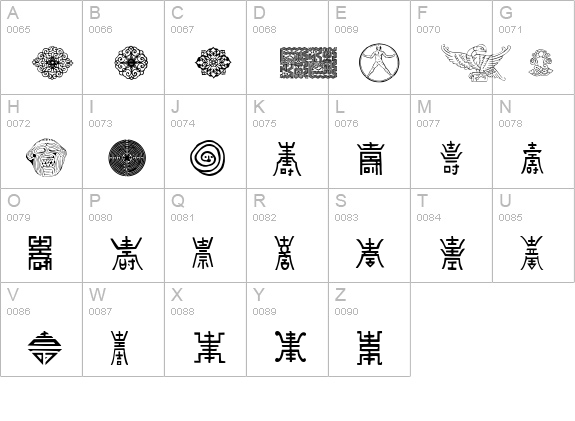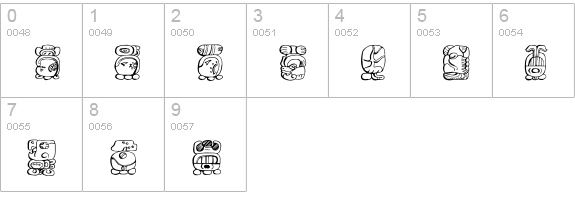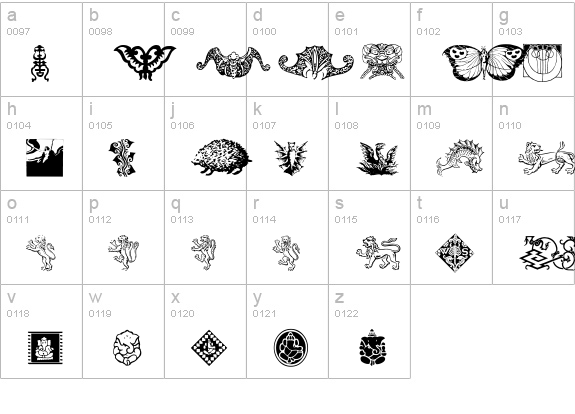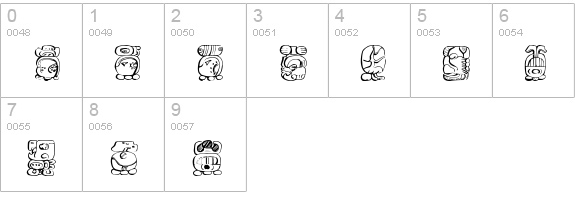
Cultural Icons Font Details
Introducing the Cultural Icons font, a versatile and dynamic typeface that pays homage to iconic symbols from various cultures around the world. This unique font features a wide range of characters inspired by art, history, and traditions, making it perfect for adding a touch of cultural flair to your designs. From ancient hieroglyphics to modern-day emojis, Cultural Icons font brings a rich tapestry of symbols at your fingertips. This one-of-a-kind font is not only visually captivating but also incredibly functional, allowing you to create eye-catching graphics, posters, and branding materials with ease. Whether you're looking to add a touch of mystique to your project or simply want to celebrate the diversity of global cultures, Cultural Icons font has got you covered. The best part? Cultural Icons font is available for free download at FontsMarket.com, making it accessible to all designers and creatives looking to infuse their work with a touch of cultural significance. Don't miss out on this opportunity to elevate your designs with the captivating Cultural Icons font – download it today and start creating!